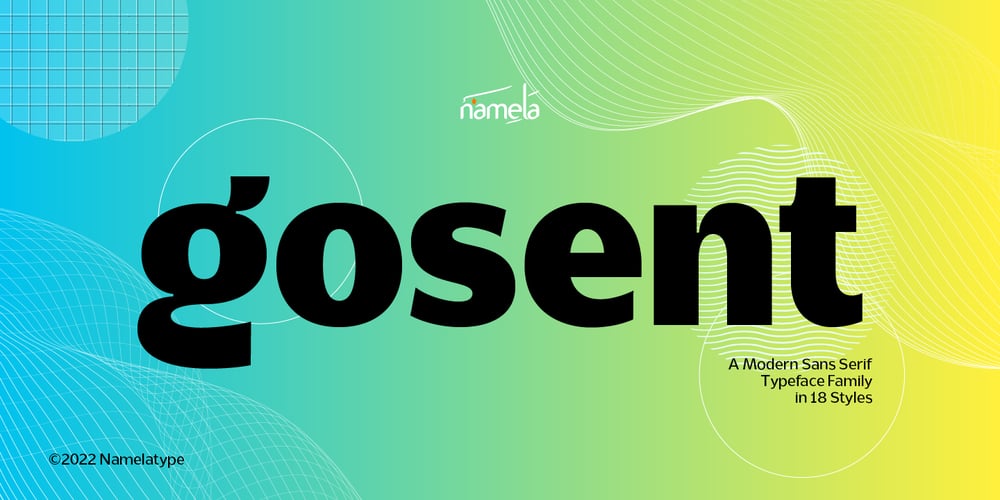
Gosent Font Family was designed by Nur Syamsi, Bustanul Arifin and published by NamelaType. Gosent contains 20 styles and family package options. Gosent is a Modern Sans serif typeface that has larger x-height size, it will give great performance in small text sizes. Features moderate contrast and lots of special details like the unusual ink trap, giving a modern feel.Gosent is great your various design, both serious and fun projects. Consists of 9 Weight variants from Thin to Black and comes with Oblique version